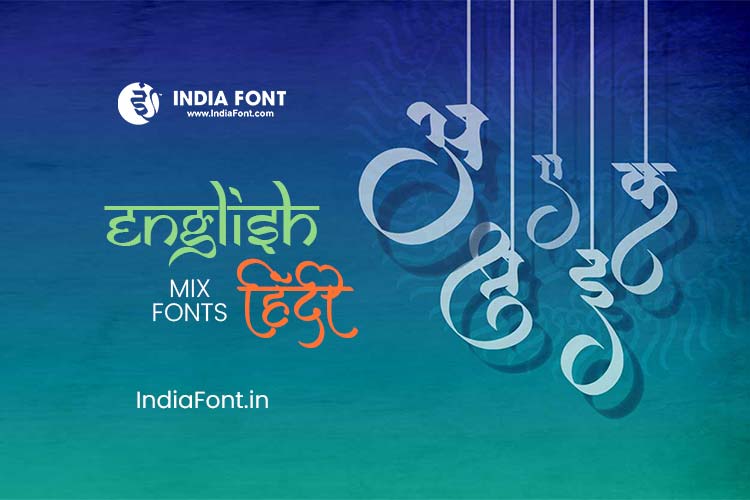
Hindi English Fonts Free Download - Mix Typography Collection
Discover Hindi English fonts free download including English fonts that look like Hindi, Hindi fonts with English typing method, and calligraphy mix fonts for modern design projects.
I had a discussion about Hindi English fonts with my designer friends and got involved in a very interesting topic today. We found that many designers are looking for English fonts that look like Hindi. Thankfully there are some fonts which are really satisfying the needs. But it's finding the needle in a haystack as there are lots of misleading content and on the other hand every user's search term is different.
So to resolve the issue, I have gathered a list of search terms and tried to gather the best results for you all in one place.
Main Things We Designers Are Looking For:
English Fonts, that look like Hindi
Fonts with Latin characters styled to resemble Devanagari script aesthetics
Hindi Fonts, look like English
Devanagari fonts with modern, Western-style typography appearance
Hindi Fonts, with English to Hindi typing method
Input systems that convert English typing into Hindi script automatically
English Fonts, that look like Hindi
In the ever-evolving landscape of design, the allure of fonts that mirror different scripts is undeniable. Designers often seek English fonts resembling Hindi, as these fonts seamlessly blend the best of both worlds. The result? Designs that exude the charm of Hindi while retaining the universal appeal of English.
To simplify your quest, we've curated a selection of fonts that effortlessly embody this fusion, allowing your designs to tell a story that transcends linguistic barriers.
Sample Text in Samarkan Style
Perfect for:
- Hindi English font designs
- Hindi English mix font projects
- Hindi type English font styling
- Cultural branding and identity
The design arena is rich with possibilities, including the captivating world of Hindi fonts resembling English. These fonts bring the beauty of Hindi characters to the Latin alphabet, creating a harmonious blend that resonates with audiences of diverse linguistic backgrounds.
Imagine the potential – designs that communicate seamlessly in both Hindi and English, fostering a connection that speaks to the heart of multicultural audiences.
These fonts are excellent for:
English-like Hindi Font
Hindi scripts styled with English typography aesthetics for modern appeal
Hindi Font English Letters
Hybrid fonts combining Hindi character beauty with English letter structure
The desire to weave multiple languages into our designs led us to explore the world of Hindi fonts equipped with English-to-Hindi typing capabilities. These innovative tools empower designers to type in English and witness their words transform into graceful Hindi characters.
Such a bridge between languages not only enhances design fluidity but also ensures accessibility for diverse audiences.
Hindi English Calligraphy Fonts Free Download
Hindi English Calligraphy Fonts allow you to type in English and get results in Hindi, that too in beautiful calligraphy style.
For those captivated by the artistry of calligraphy, our exploration extends to the enchanting world of Hindi-English calligraphy fonts. These fonts invite you to type in English and unveil results in Hindi, all presented in the captivating form of calligraphy.
These fonts infuse elegance and beauty into your designs, transforming them into visual masterpieces that leave a lasting impression.
Calligraphy Font Benefits:
Artistic Expression
Transform simple text into beautiful, hand-lettered artwork with sophisticated calligraphy styles.
Cultural Elegance
Combine the beauty of Hindi scripts with English accessibility for multicultural design projects.
Visual Impact
Create striking designs that stand out with the unique blend of Eastern and Western typography.
Wedding Invitations
Create elegant bilingual wedding invitations that honor both traditions
Brand Identity
Develop unique brand identities for multicultural businesses and organizations
Educational Materials
Design learning materials that bridge language gaps effectively
Artistic Projects
Create stunning artwork that celebrates linguistic diversity
The Art of Typography Fusion
In the realm of design, the synergy of languages enriches our creations and amplifies their impact. Whether you're blending styles, bridging languages, or exploring calligraphic finesse, the art of typographic fusion is at your fingertips.
Best Practices for Hindi-English Typography:
🎯 Balance and Harmony
Ensure that Hindi and English elements complement each other rather than compete for attention. Maintain consistent weight and style.
Embrace Creative Typography Fusion
It's time to embrace the creative journey, experiment boldly, and discover the magic that happens when diverse languages unite in design.